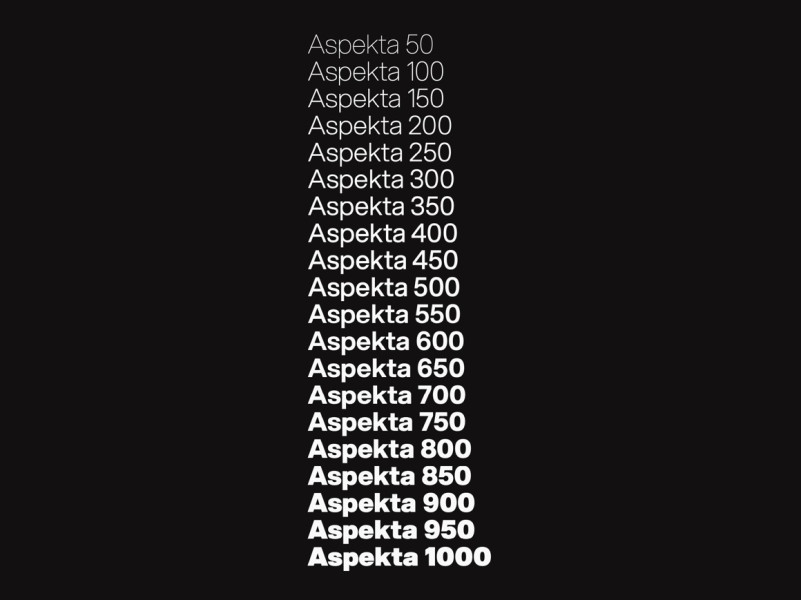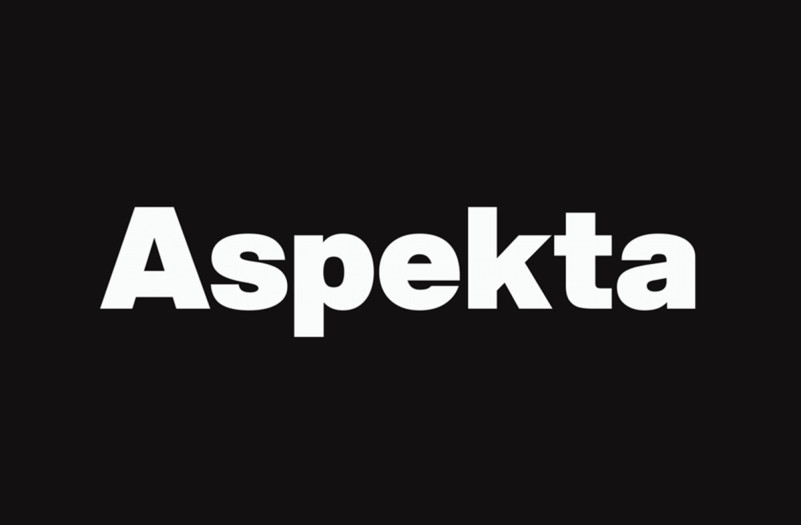
Aspekta Font
Introducing Aspekta Sans Font is a modern neo grotesque family that consists of 20 weights. Inspired by a clean, simple and neutral style. The family provides a wide range of weights and stylistic alternatives that can be mixed to create strong branding.